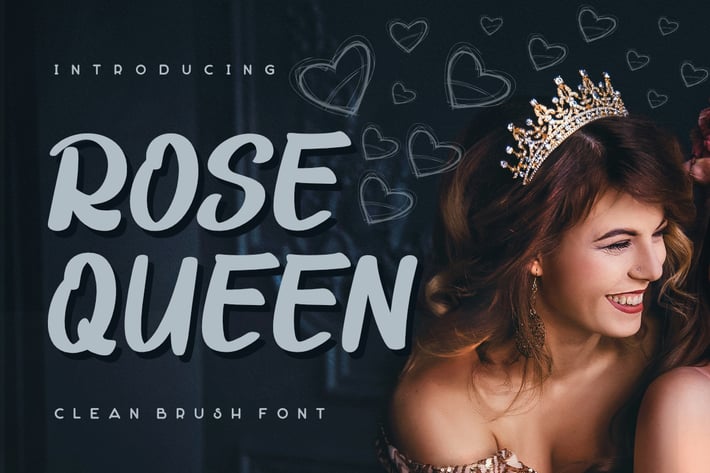
Rose Queen Clean Brush Font
Rose Queen Clean Brush Font, This font is made with a high premium quality level which you can use as flyers, quotes, posters, banners, packaging, merchandise, logotypes and much more.